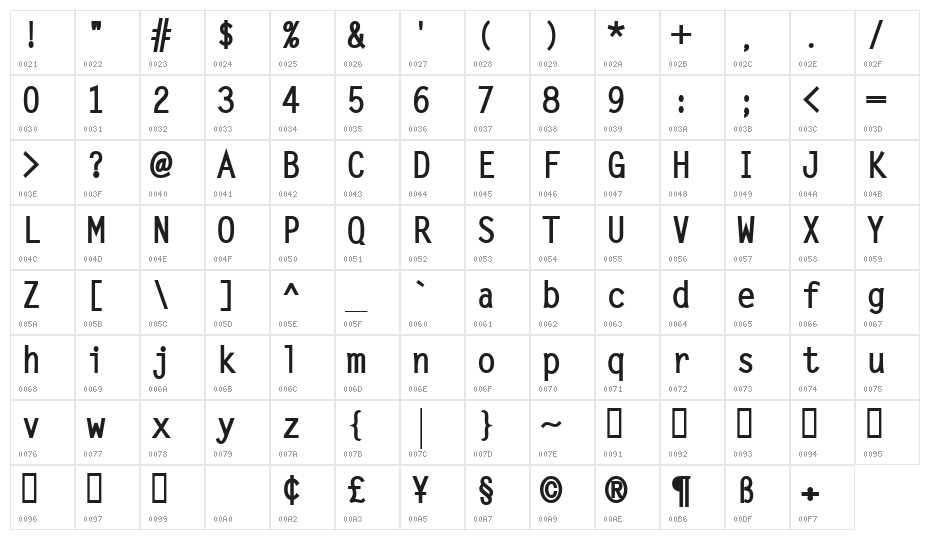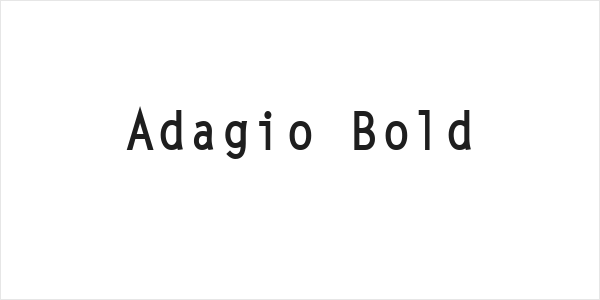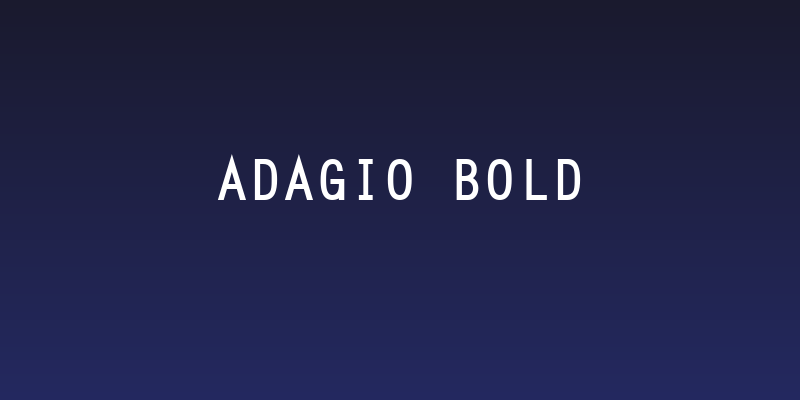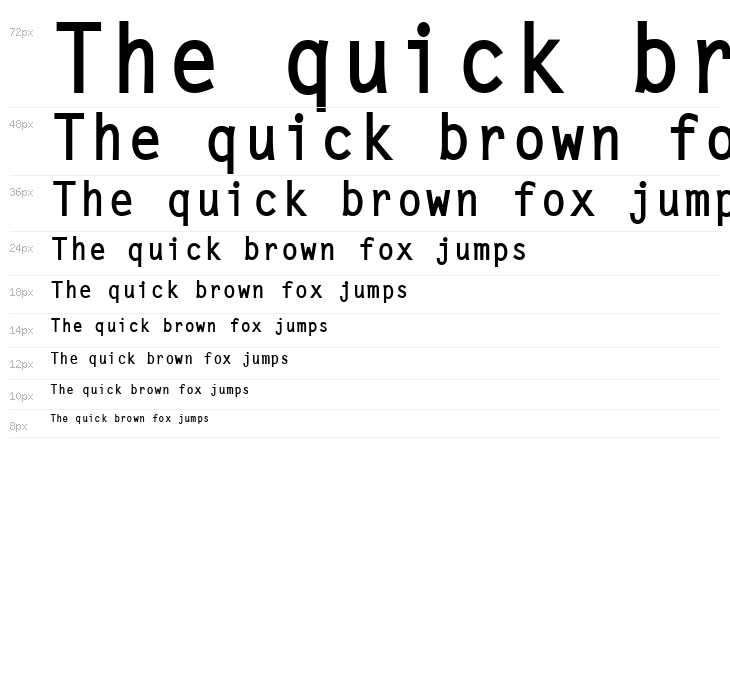
Adagio Bold Font
Adagio Bold Description
This font features a bold, clean, and modern sans-serif style with uniform stroke widths. The characters are well-defined and evenly spaced, providing excellent readability. The uppercase letters are slightly taller than the lowercase, maintaining a consistent and balanced appearance. The numerals are clear and distinct, matching the overall boldness of the alphabet. Special characters are well-integrated, ensuring versatility in various text compositions. The design is straightforward yet impactful, making it suitable for a wide range of applications.
Proposed ProjectsIdeal for branding, headlines, posters, and digital content where clarity and impact are essential.